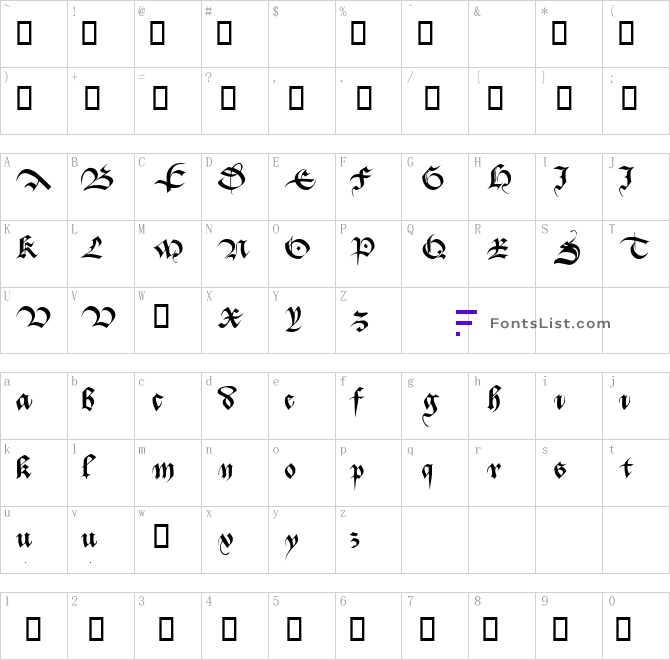
- Font Name:Batarde
Batarde.ttf is a very beautiful artistic font, Batarde.ttf is widely used in the design and printing of various books and pictures,Batarde.ttf has a strong visual impact,Batarde.ttf is a commonly used font in newspapers, magazines and books, and is used in posters, e-commerce Poster design, store design, logo design, font design and other fields.Batarde.